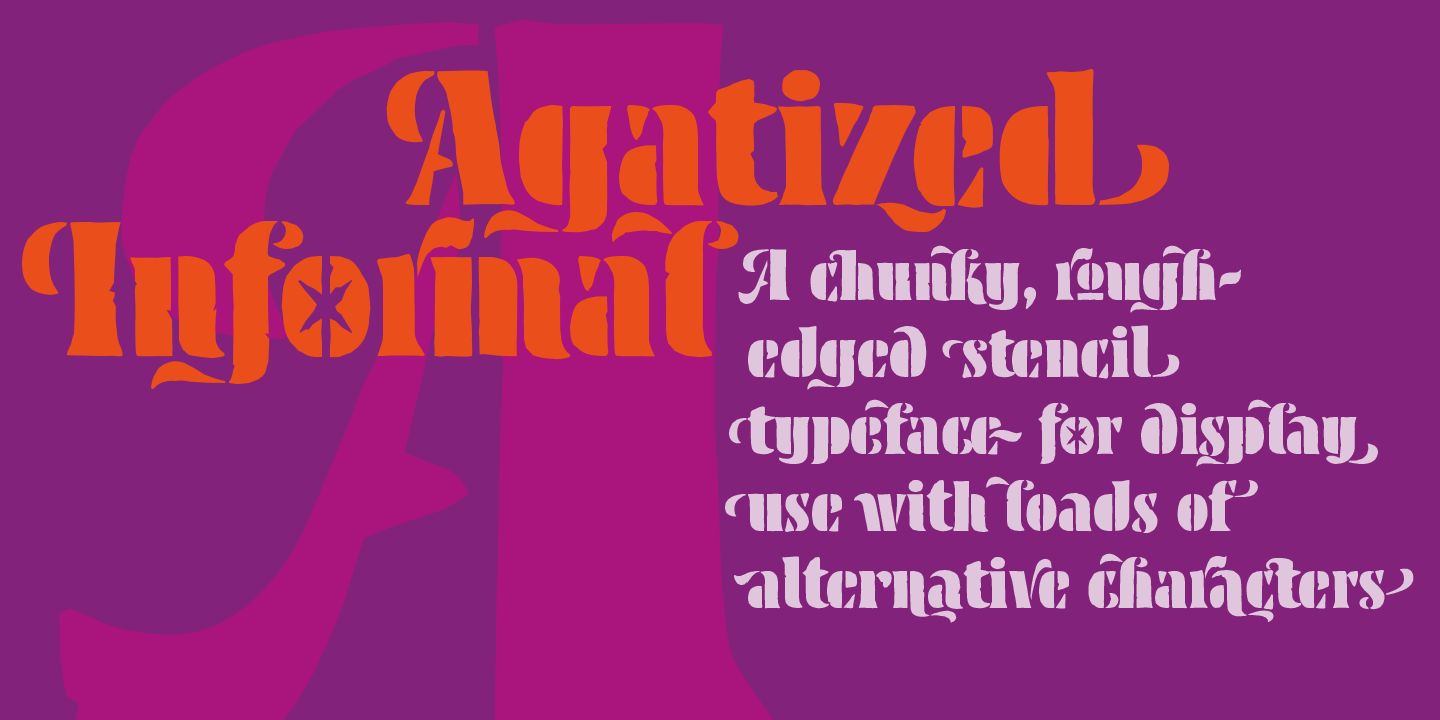
Embrace the rugged charm of the Agatized Informal Font Free Download, a rough-edged stencil typeface designed by Michael Gills for ULGA Type. With its chunky letterforms and casual style, this font is perfect for bold, playful designs. Test it for free, but a license is required for commercial use.
The Agatized Informal Font is ideal for eye-catching posters, logos, and advertising materials. Its distinctive, weathered look suits music festival flyers, streetwear branding, and social media graphics, adding a raw, authentic vibe to any project.
Why is the Agatized Informal Font Free Download so exciting? Its craggy, handcrafted aesthetic exudes a carefree, rebellious spirit, making it a standout for designs that need personality and edge. The font’s textured, stencil style brings a unique, gritty flair that captivates viewers.
The Agatized Informal Font is a single-weight typeface with a sibling, Agatized Formal, which offers a bolder, more structured counterpart. This pairing allows designers to mix and match for dynamic, cohesive visuals.